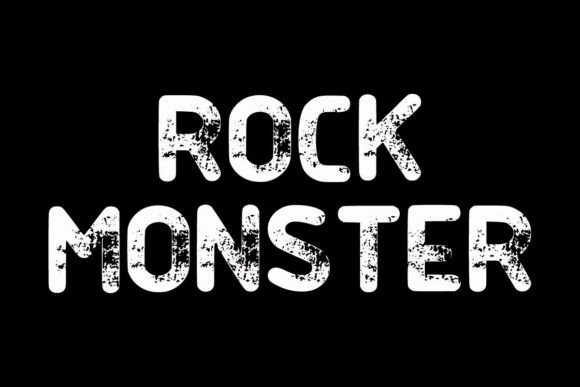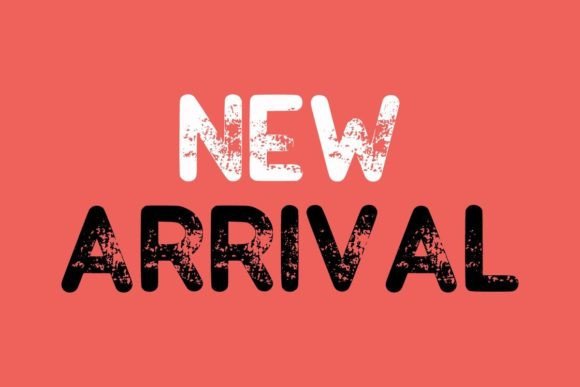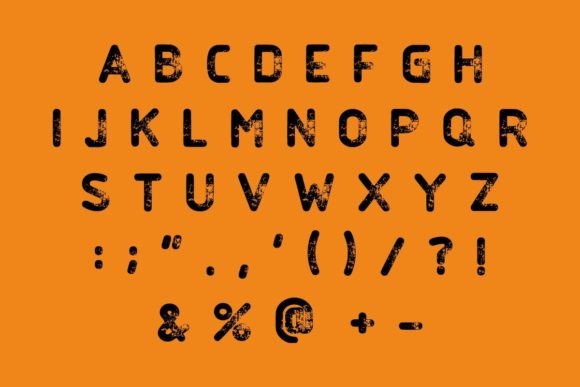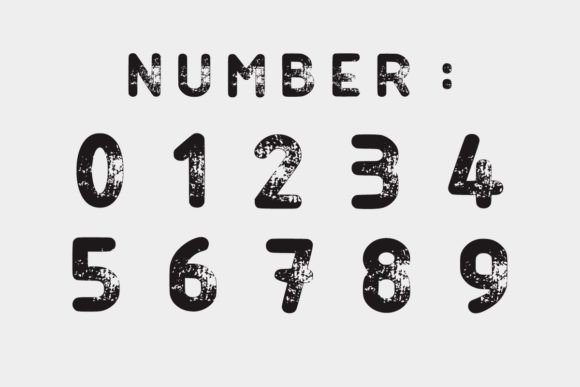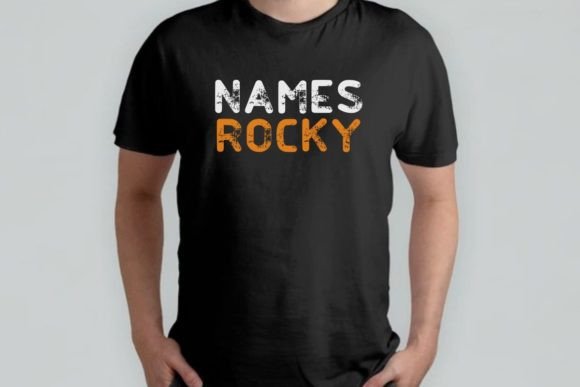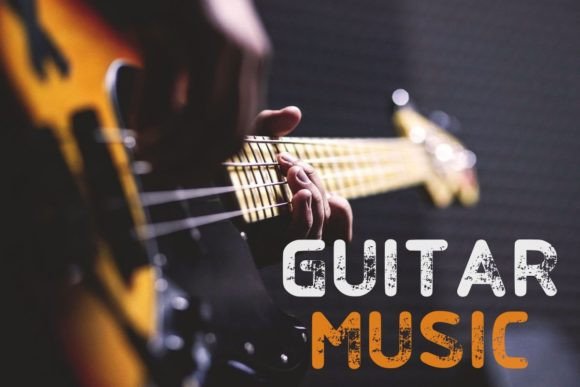
Introduction to Grock Force Font
Grock Force is a cool and bold display font, perfect for various projects such as blog posts, logos, branding, ads, invitations, greeting cards, planners, photo albums, decorations, and much more.
Key Features of Grock Force Font
Why Choose Grock Force Font?